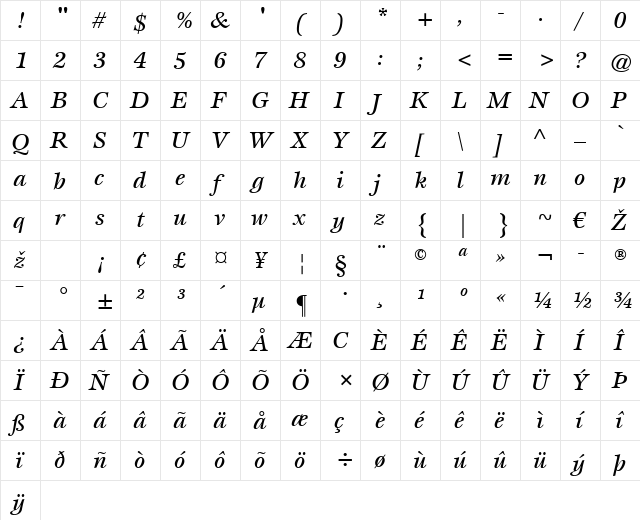
Esprit LT Medium Italic
Design Context for Esprit LT Medium Typeface
Esprit LT Medium takes a measured approach to typography — its balanced proportions and neutral character make it a reliable workhorse for both digital and print work. The slanted form adds forward momentum and visual energy. The delicate stroke weight brings airiness and refinement to layouts.